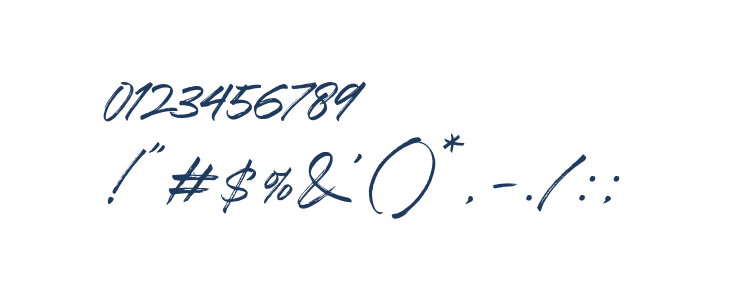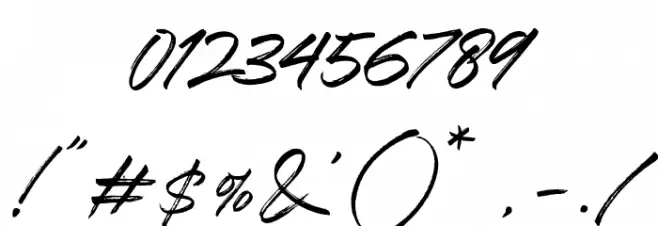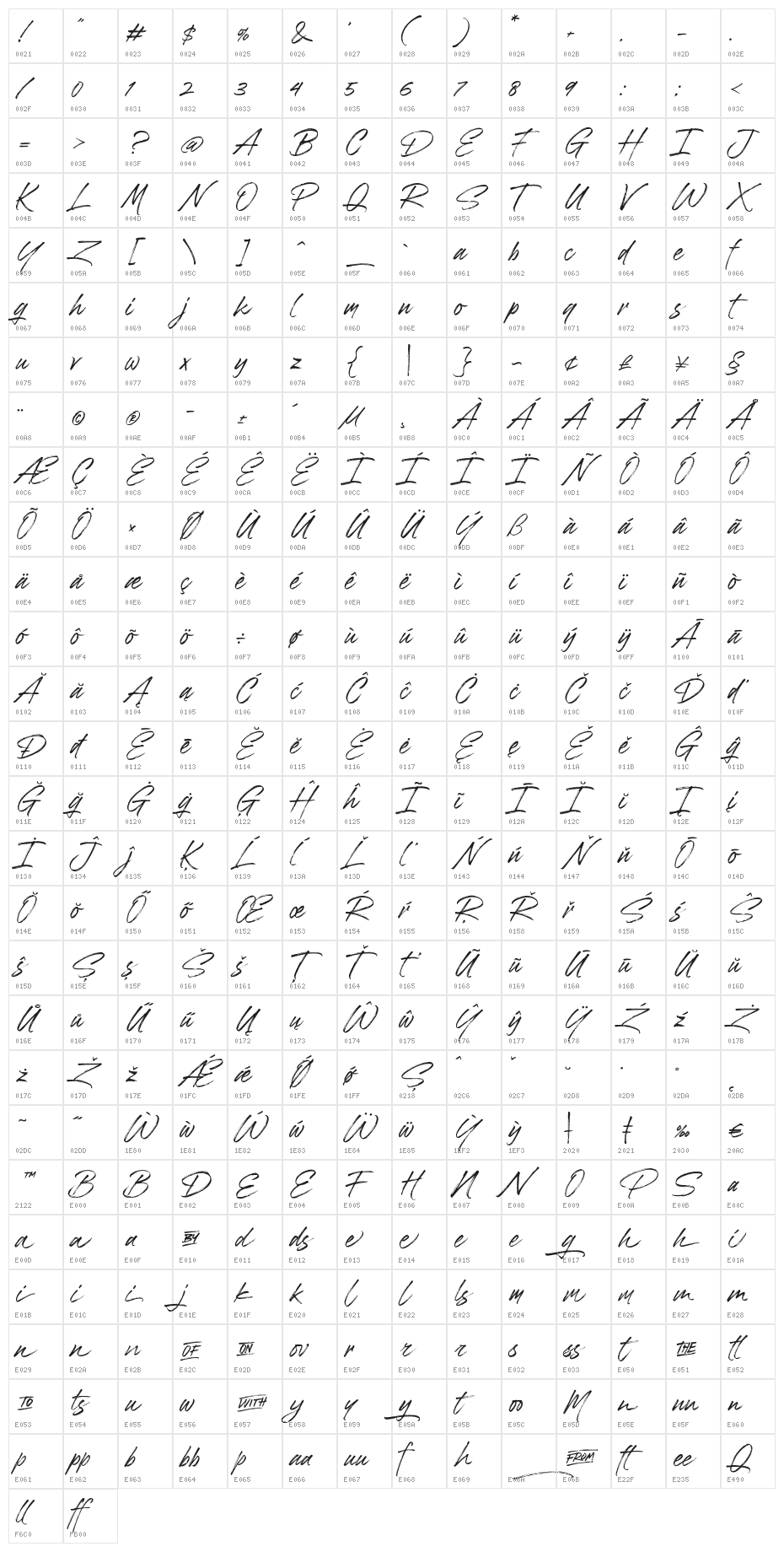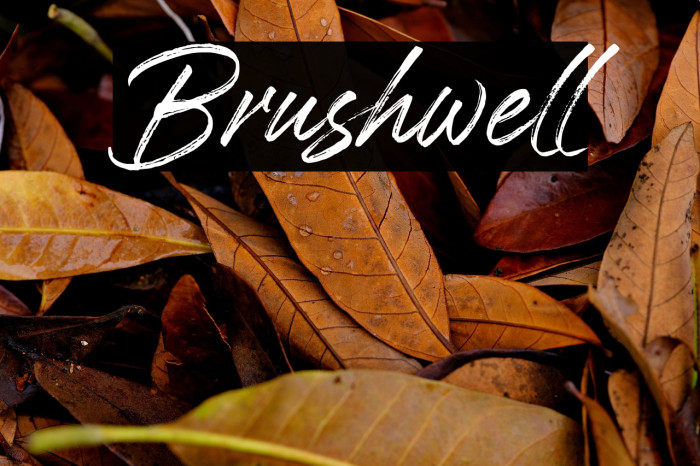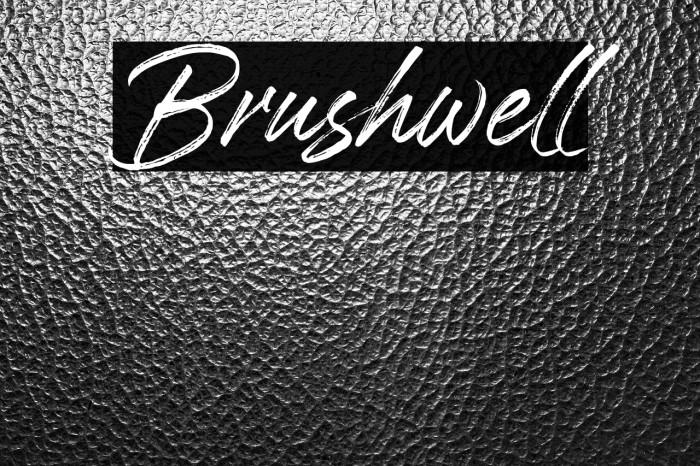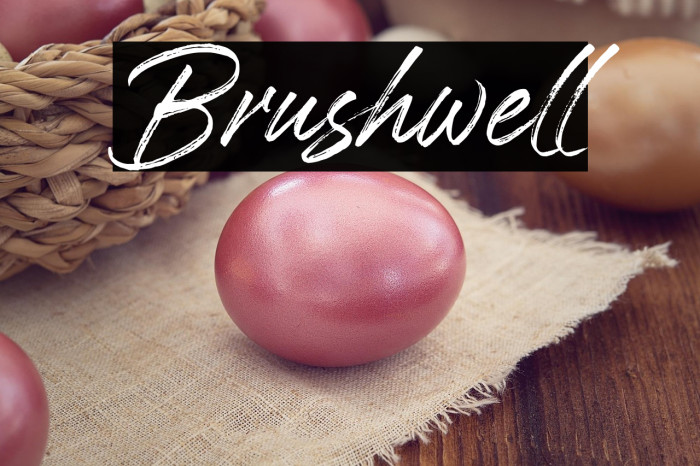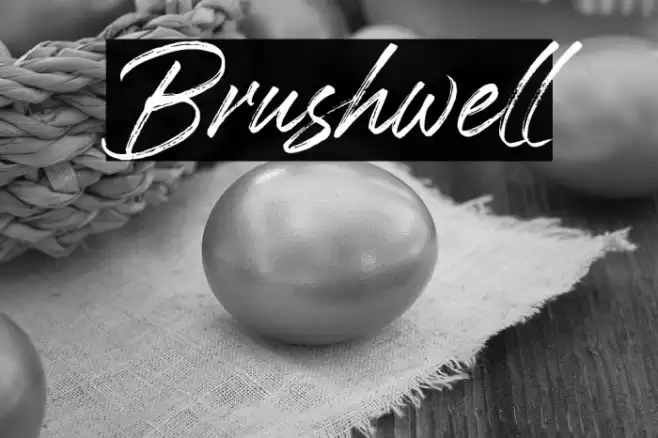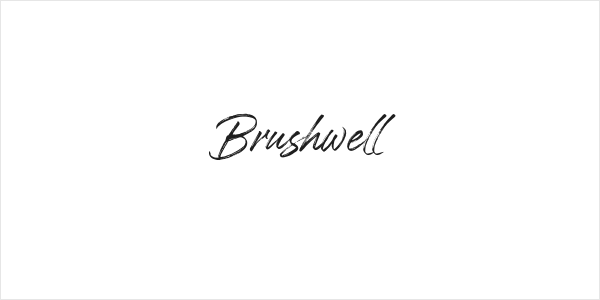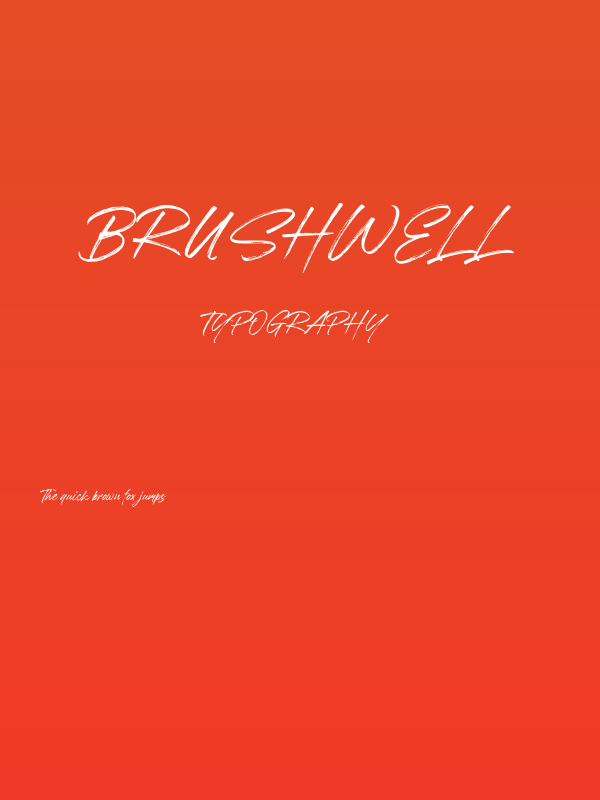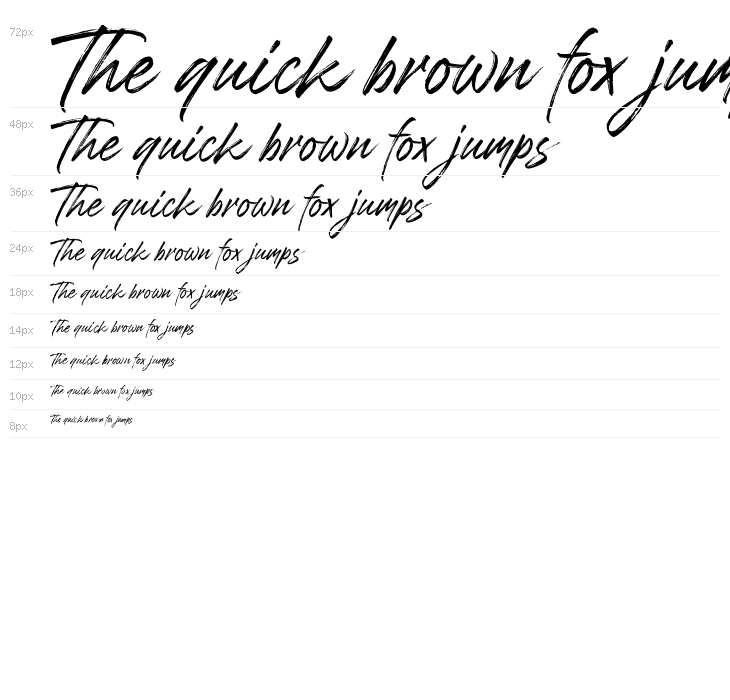
Brushwell Font
Brushwell Description
This font exudes a dynamic and energetic feel, characterized by its brush-like strokes that convey a sense of movement and fluidity. The uppercase and lowercase letters are crafted with a natural, hand-drawn appearance, giving it an authentic and artistic touch. The numbers and special characters maintain this style, ensuring consistency throughout. The strokes vary in thickness, adding a lively contrast that enhances its visual appeal. This font is perfect for projects that require a personal, creative touch, such as invitations, posters, or branding materials that aim to stand out with a unique flair.
| Proposed Projects | Ideal for invitations, posters, branding, and creative projects requiring a personal touch. |